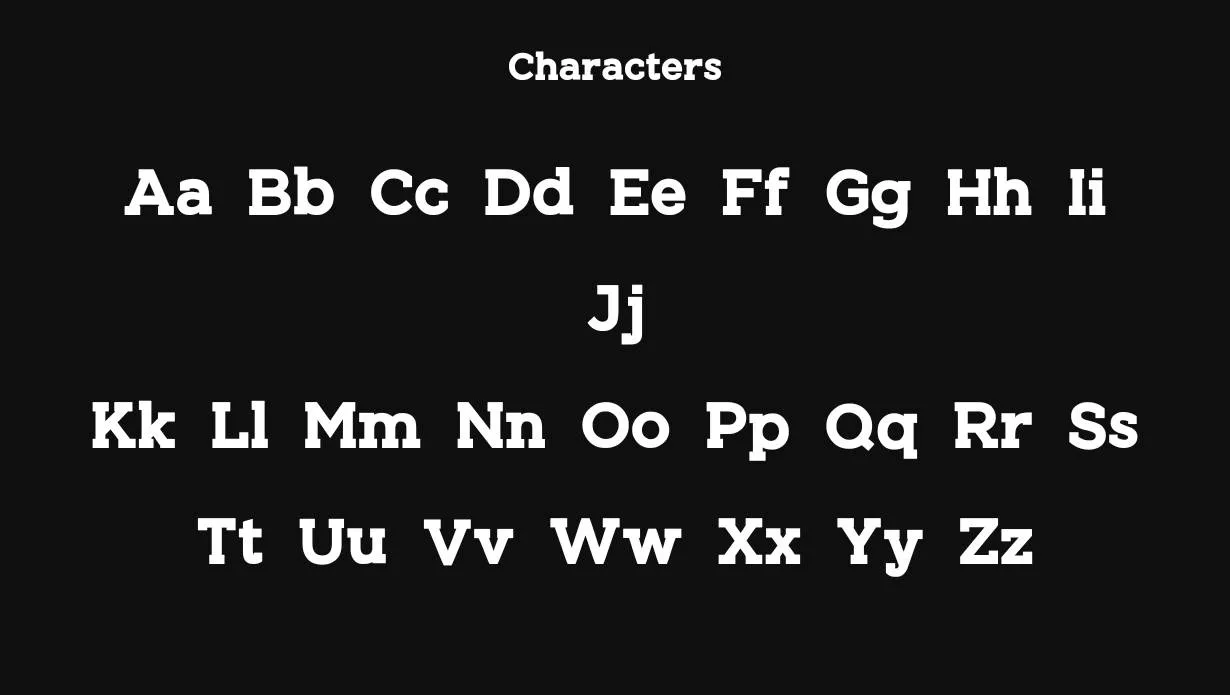
Arizon Font Free Download
Today we have brought a trendy and unique typeface named Arizon Font. This stunning typeface belongs to the Serif font family. The creator of the awesome typeface is none other than Dian Hadi and it was published by Bearytype Foundry.